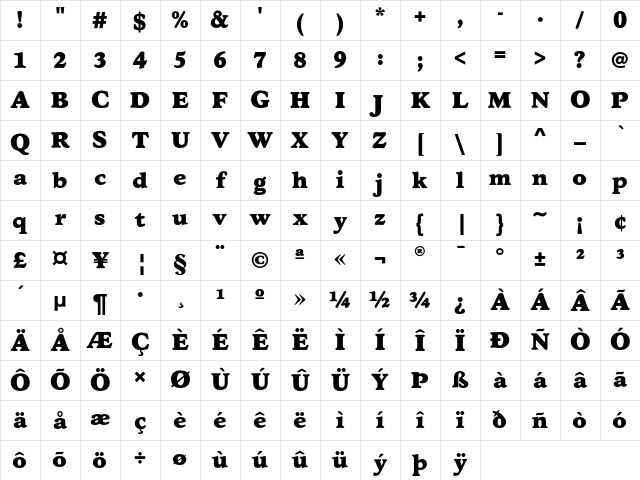
StratfordEF Black
StratfordEF Family
Design Context for StratfordEF
StratfordEF is a composed and adaptable typeface that performs quietly and consistently across a wide range of design contexts.